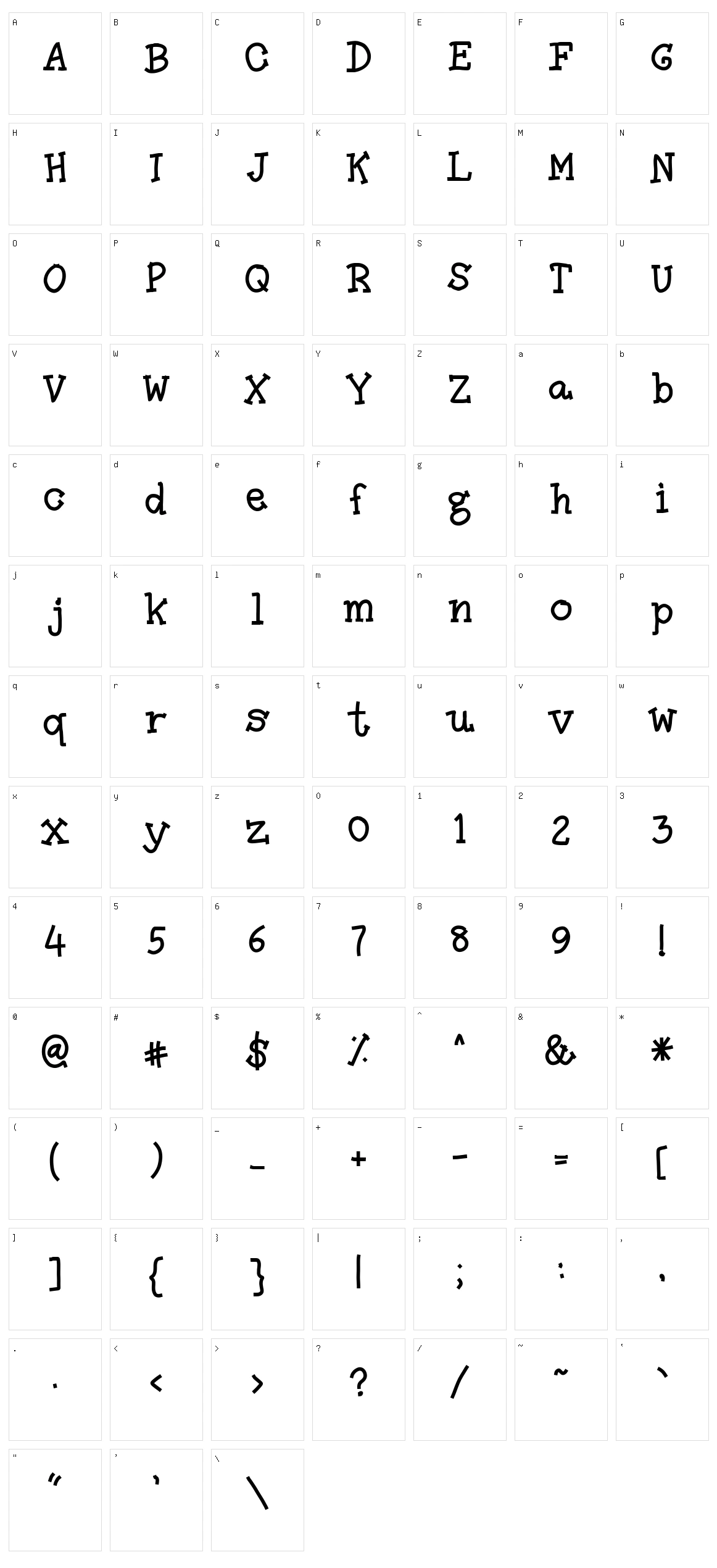
The free font Amutham is carefully designed by Tharique Azeez, showcasing a thoughtful balance of creativity and usability and falls under the Cartoon font style. When you download the ZIP file, it contains only 34.45 KB of font files, making it lightweight and quick to download. Please review the license details below to understand permitted usage and distribution rights. If license information is not available, we recommend using this font for personal projects only or contacting the author directly for commercial usage permissions.
Created by Tharique Azeez